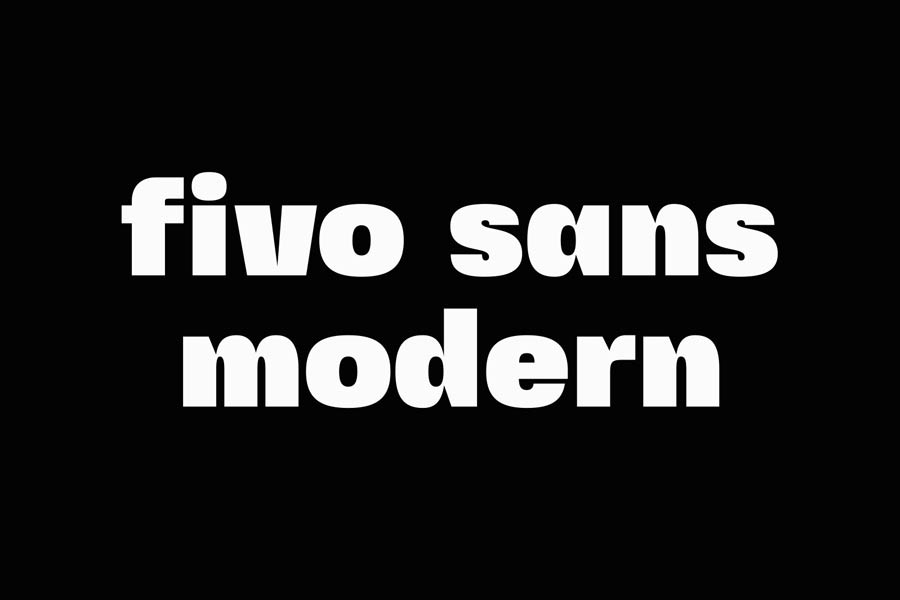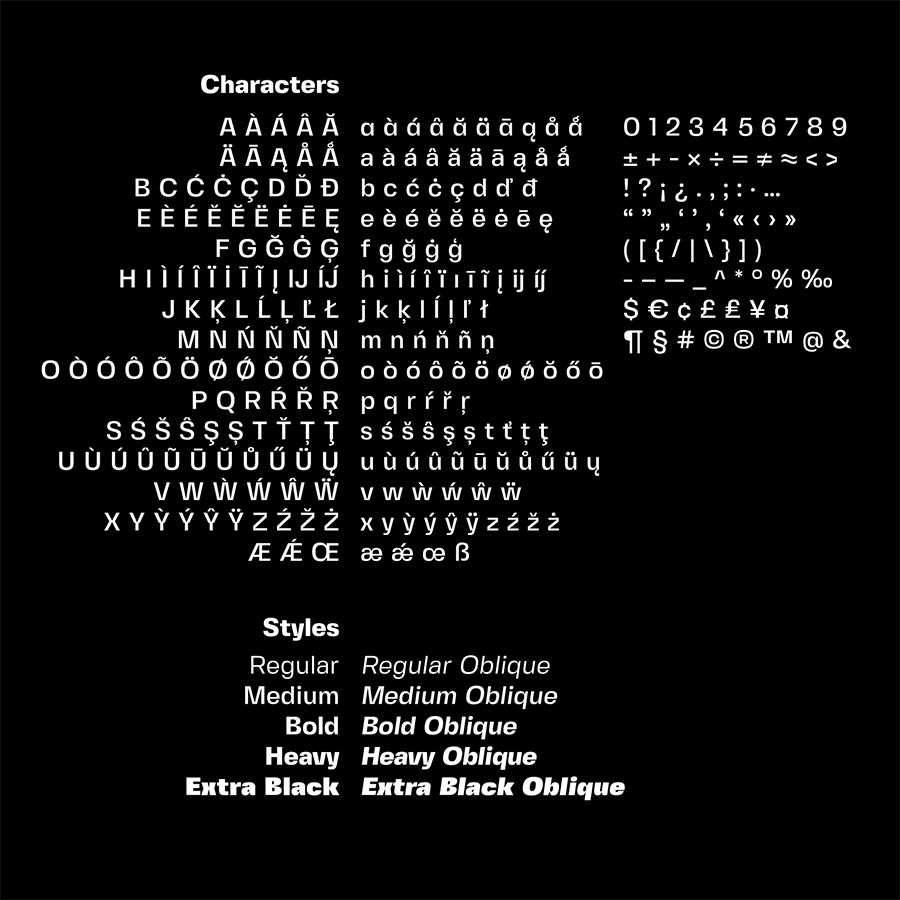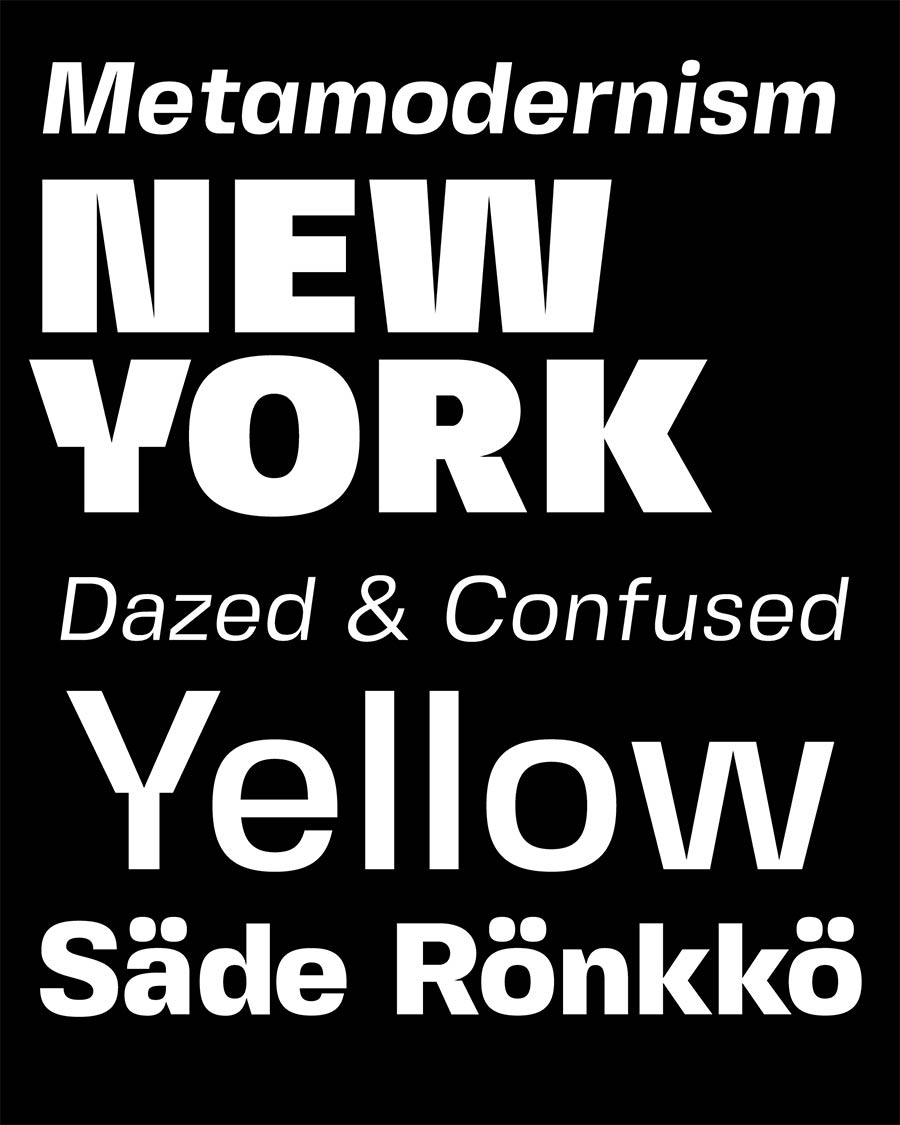
Fivo Sans Modern is an eye-catching display version of Fivo Sans. Comes with 5 weights from Regular to Extra Black (accompanied with oblique style for each weight), Fivo Sans Modern has more contrasty stroke designs and is good for headlines, posters, logotypes and more.
The font comes with 358 characters per weight and it supports 192 languages.
- Designer: Alexander Slobzheninov
- Styles: 10
- Category: Display, Sans Serif